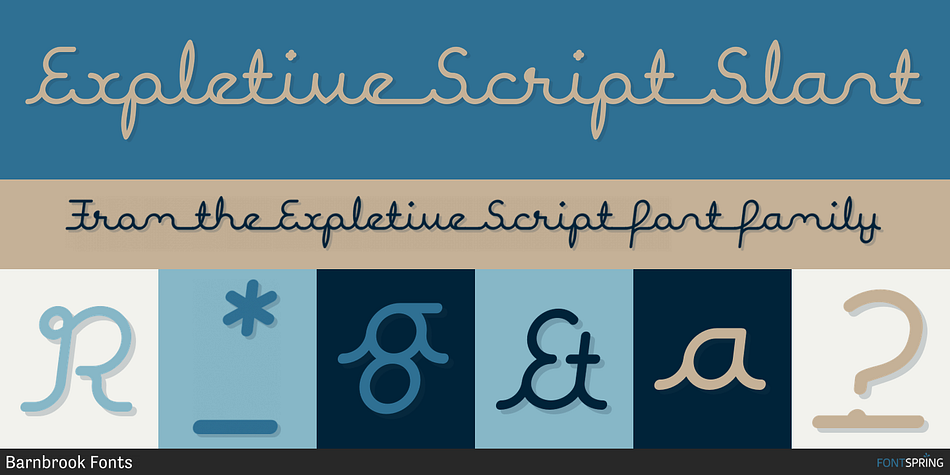
Expletive Script Slant
Designed by Jonathan Barnbrook and Marcus Leis Allion, Expletive Script is a script font family. This typeface has four styles and was published by Barnbrook Fonts.
A modular font based upon a circular form, Expletive Script’s characters can sit above or below the baseline to create unusual display typography and complex repeating patterns. Expletive Script has a playful spirit and simple geometry that makes it suitable for a variety of uses from fine detailing to expressive headlines. See more of Expletive Script here.